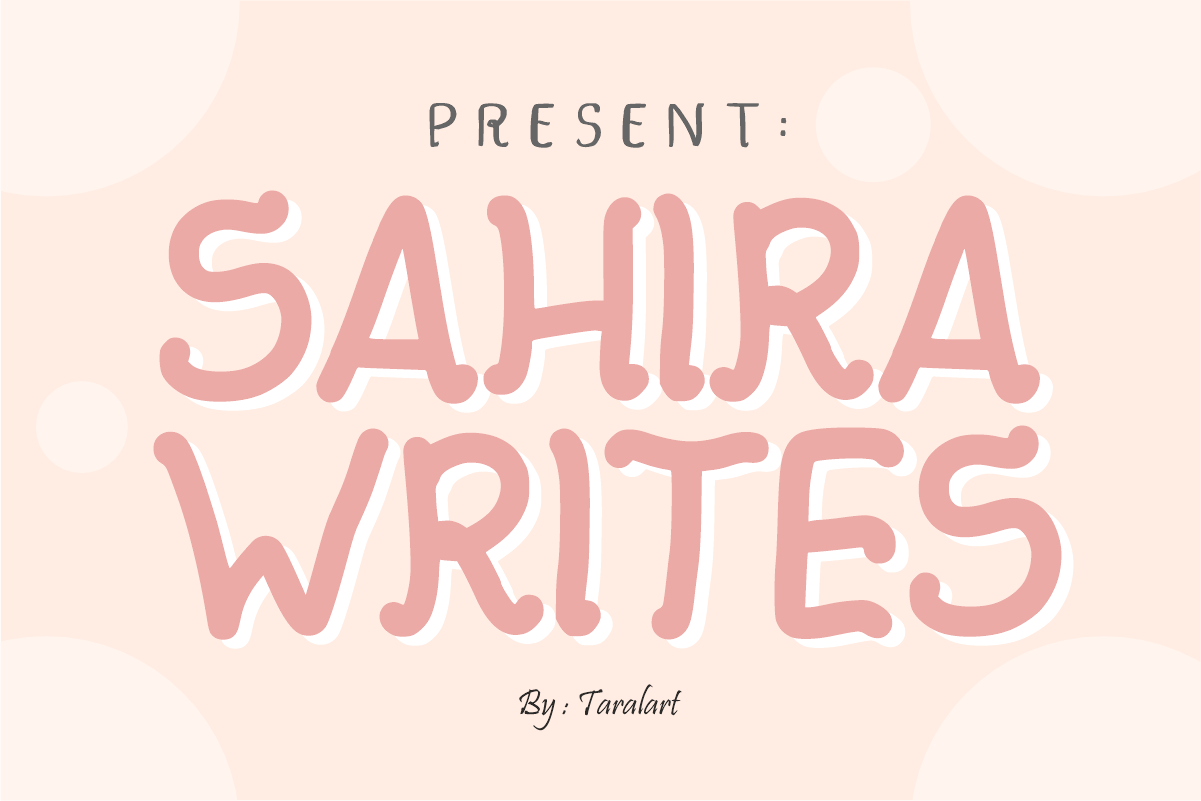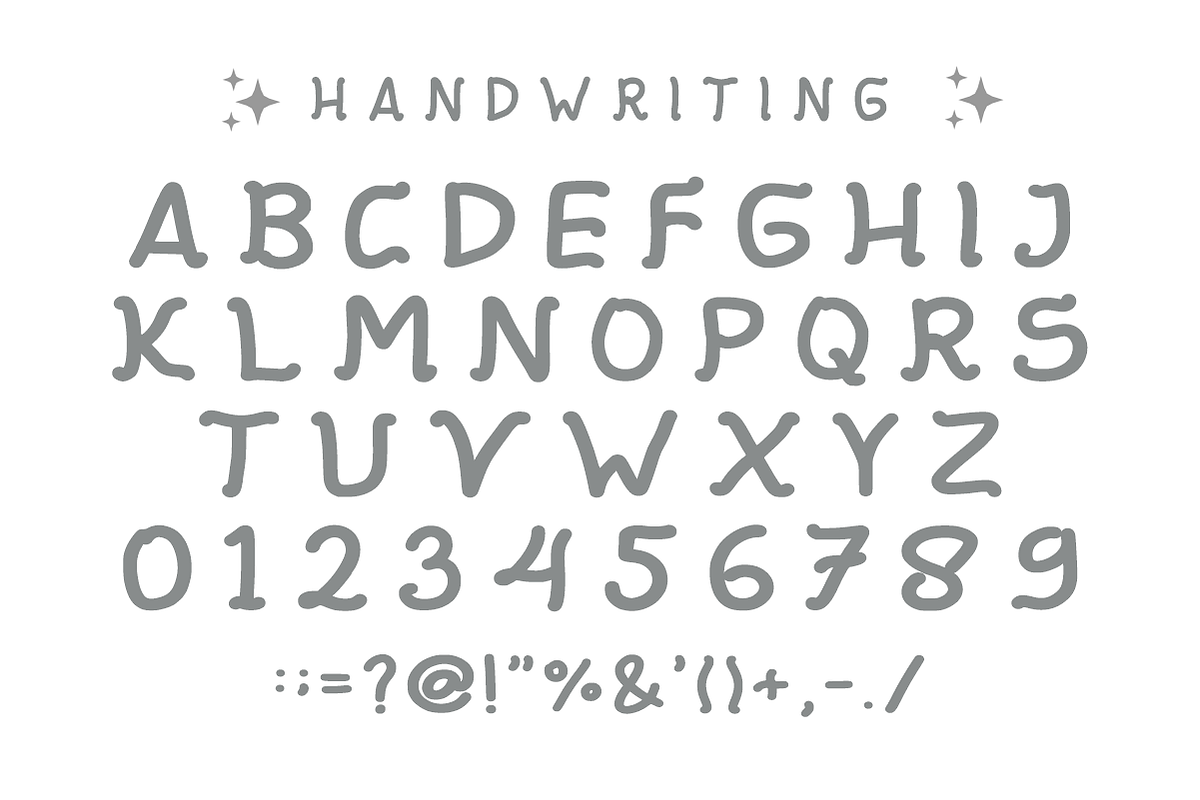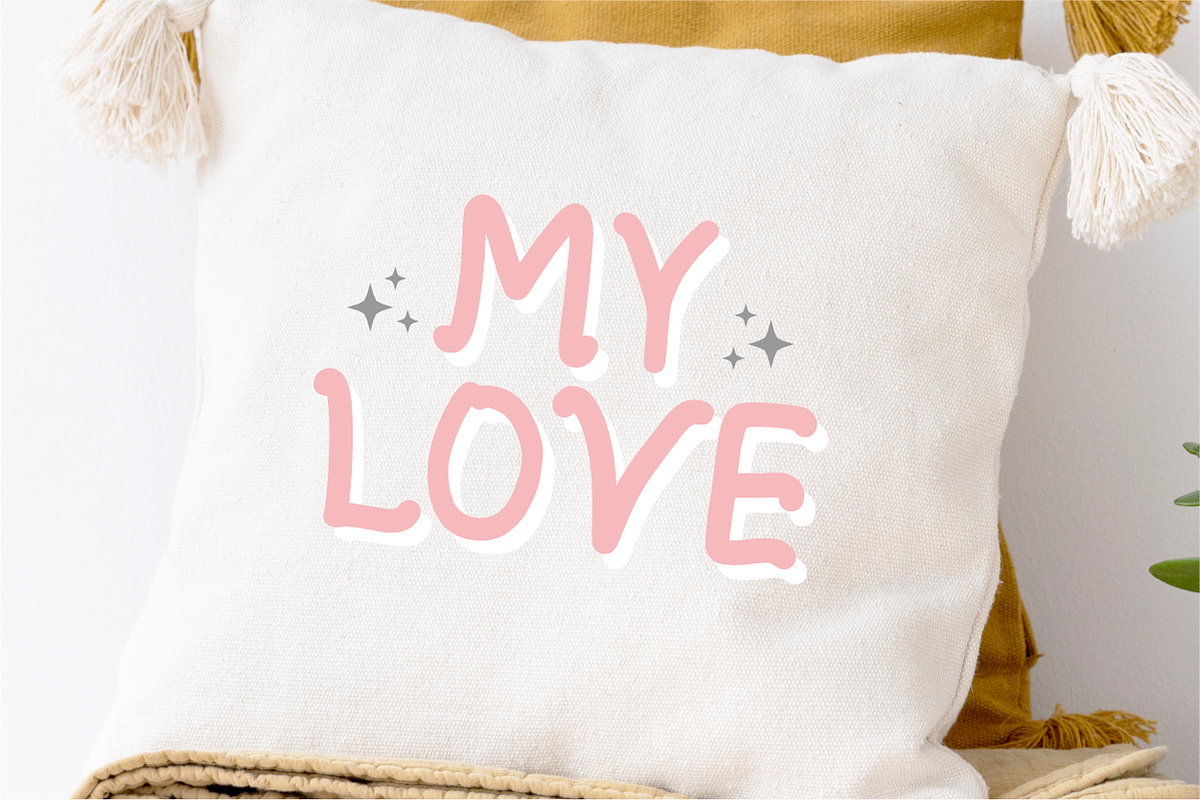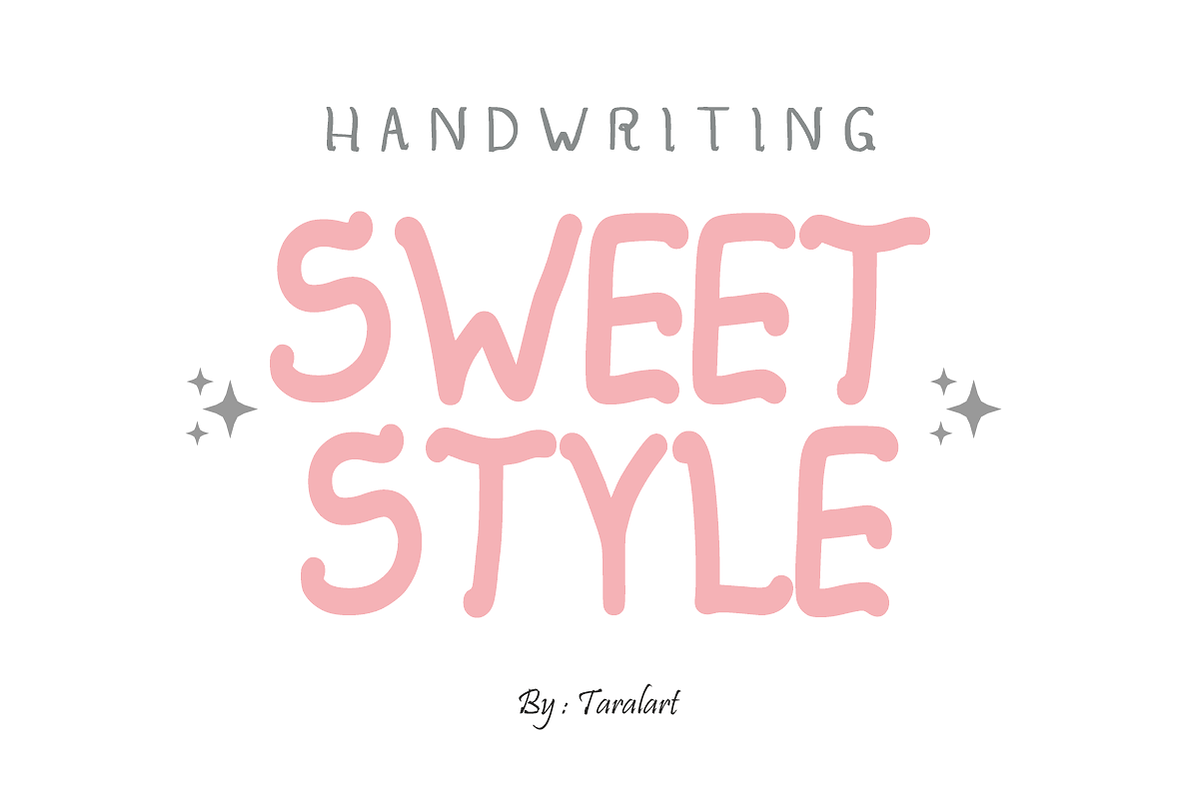
Sahira Writes - Cute Playful Font
Sahira Writes is a sweet, friendly display font featuring rounded handwritten letterforms with a warm, casual bounce. Perfectly suited for custom die-cut stickers, greeting cards, and classroom layouts, this charming font adds an instant bespoke and approachable touch to your headlines. Every character is cleanly vectorized to guarantee smooth, effortless cutting on Cricut and Silhouette machines.
Uppercase Character Set
Numbers & Basic Punctuation